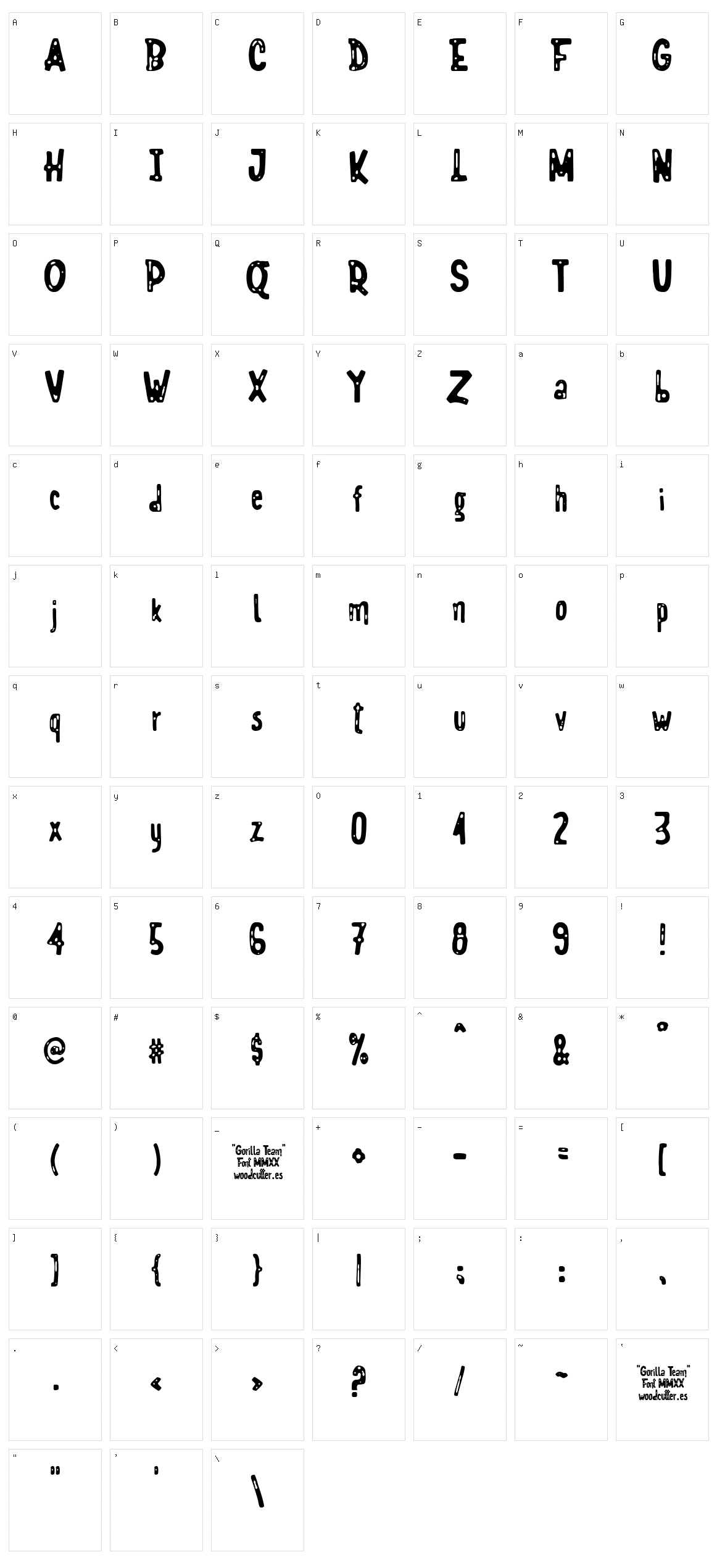
The free font Gorilla Team is carefully designed by Woodcutter, showcasing a thoughtful balance of creativity and usability and falls under the Cartoon font style. When you download the ZIP file, it contains only 46.56 KB of font files, making it lightweight and quick to download. Please review the license details below to understand permitted usage and distribution rights. If license information is not available, we recommend using this font for personal projects only or contacting the author directly for commercial usage permissions.